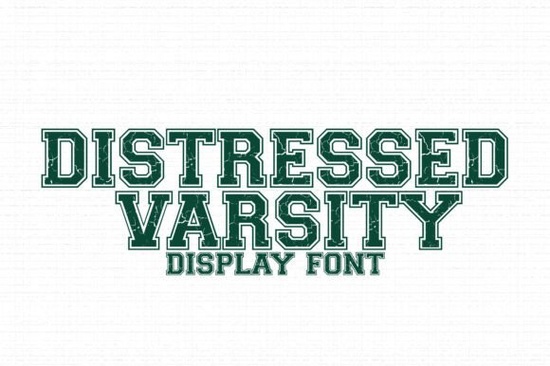
If you're looking for a font that brings instant athletic energy and vintage charm to your projects, the Distressed Varsity Font fits the bill no extra styling needed. It’s not just another sports font; it’s a thoughtfully crafted grunge alphabet with built-in texture, subtle wear, and authentic letterpress-like imperfections. Whether you’re designing custom football shirts for a local league, prepping school spirit materials, or cutting vinyl for a DIY graduation banner, this font delivers consistent character without requiring manual distressing or layering effects.
What makes this font work so well for real-world projects?
Unlike clean, modern sans-serifs or overly ornate script fonts, Distressed Varsity lands right in the sweet spot: legible at small sizes (great for jersey numbers), bold enough for large-format prints (think gym banners or tailgate signs), and detailed enough to hold up when cut on a Cricut or Silhouette machine. Each glyph includes intentional roughness slight chipping, ink bleed, and grainy edges that mimics aged screen-printed fabric or weathered signage. That means less time tweaking layers in design software and more time getting your project made.
It’s especially popular among crafters who sell printable party kits, since the texture adds visual interest even in black-and-white PDFs. Print-on-demand sellers also appreciate how well it scales across product mockups from t-shirts and hoodies to mugs and tote bags without losing its personality.
Where do people actually use it?
- Team jerseys and game-day apparel: Works beautifully for names, numbers, and short slogans especially when paired with classic block layouts.
- School and college projects: Perfect for spirit week posters, yearbook graphics, or alumni event invites. If you like the look of campus brick walls and decades-old pep rallies, this font feels familiar.
- Digital printables and SVG bundles: Bundled with coordinating graphics (like footballs, stars, or stitched borders), it helps creators build cohesive themed kits faster.
- DIY party decor: Think birthday backdrops, photo booth signs, or graduation yard signs where authenticity matters more than polish.
How does it compare to other sports-style fonts?
There are plenty of varsity-inspired fonts out there but many rely on heavy outlines or sharp corners that don’t translate well to cutting machines or small embroidery. Distressed Varsity avoids those pitfalls by keeping stroke weights balanced and inner counters open. That’s why it cuts cleanly on vinyl and holds up well in raster-based formats like PNGs or JPEGs.
For contrast, Smart Candy Font leans playful and rounded great for kids’ parties but too soft for athletic branding. Collegestyle Regular gives strong academic vibes but lacks texture. If you want something grittier and more immediate, Grunge Jersey offers similar energy but with tighter spacing and less variation between characters. And while Brooklin Varsity has elegant structure, it’s smoother better for polished presentations than raw, fan-driven energy.
• Always test the font at your intended size first especially if using with a cutting machine. Some grunge fonts break up below 18pt; Distressed Varsity stays readable down to ~14pt in most layouts.
• Pair it with simple, neutral sans-serifs (like Montserrat or Open Sans) for body text it’s a strong headline font, not meant to carry long paragraphs.
• If you’re layering it over photos or busy backgrounds, try adding a subtle white stroke or shadow in your design app. The distressed edges benefit from a little separation.
Need a quick start? Try pairing Distressed Varsity with a basic star icon, a navy-and-gold color palette, and a thick border it’ll feel instantly recognizable as “team spirit,” whether you’re making gear for a high school soccer squad or a backyard Super Bowl party.